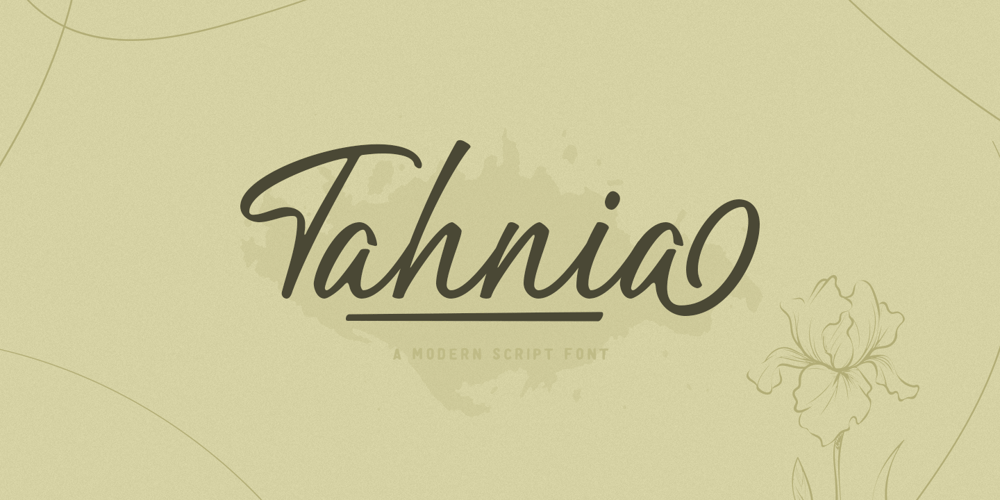
Tahnia
Tahnia font
Tahnia Font Family was designed by Gustian Agung Asprilla and published by Rillatype. Tahnia contains 1 styles and family package options. Introducing, Tahnia Modern Script, a lovely modern font that bring you natural handwritten feel with lots of alternates. This font is suitable for you who needs a typeface for headline, logotype, quotes, apparel, invitation, branding, packaging, advertising, etc. to access the underline just type _ + (number 1-3) for example _1 _2 _3We hope you enjoy the font, if you have any other questions feel free to email me at rillatype@gmail.com